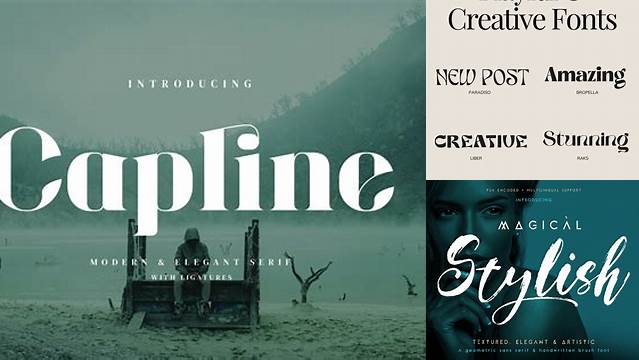
Stylish Fonts Themes: Free Downloads & Creative Ideas
Hey guys! Ever feel like your designs, presentations, or even just your social media posts are a bit… meh? You know, like they're missing that special oomph that makes people stop scrolling or lean in closer? Well, a huge part of that secret sauce is typography, and more specifically, using stylish fonts themes! Today, we're diving deep into the awesome world of free font downloads, exploring how to find the perfect styles to elevate your projects, and giving you tons of inspiration to make your work truly stand out. Forget boring, bland text – it's time to get creative!
Understanding the Power of Stylish Fonts
So, let's kick things off by really getting into why fonts matter so much, you guys. Think about it: text is everywhere. It's how we communicate, how we learn, how we express ourselves. And the way that text looks – the stylish fonts themes you choose – can completely change the message and the feeling you're trying to convey. A script font might feel elegant and personal, perfect for wedding invitations or a heartfelt letter. On the other hand, a bold, sans-serif font can convey strength, modernity, and professionalism, ideal for a business logo or a tech startup's website. Even a quirky, handwritten-style font can add personality and approachability to a blog post or a casual flyer. When you choose stylish fonts themes that align with your brand or the message you want to send, you're not just picking letters; you're crafting an entire vibe. This visual communication is incredibly powerful. It can influence a reader's perception before they even read a single word. A well-chosen font can make your content feel trustworthy, exciting, playful, sophisticated, or even urgent. It's like dressing up your words! If you're going to a formal event, you wouldn't wear ripped jeans, right? Similarly, you wouldn't use a playful, cartoonish font for a serious legal document. The goal with stylish fonts themes is to ensure your typography tells the right story and resonates with your intended audience. It’s about creating an emotional connection and a memorable impression. Many designers and content creators often overlook the subtle yet significant impact of typography, focusing more on colors and imagery. However, stylish fonts themes are the backbone of visual design. They provide structure, readability, and aesthetic appeal. Mastering the art of font pairing and selection can significantly elevate the overall quality and impact of your work, making it more engaging and professional. So, next time you're working on a project, really consider the personality of your text and how you want it to be perceived. The right stylish fonts themes can make all the difference in capturing attention and leaving a lasting positive impression.
Exploring Different Font Categories for Style
Alright, let's get a bit more granular, shall we? When we talk about stylish fonts themes, it's helpful to know the different families or categories they fall into. This way, you can intelligently pick the ones that suit your needs. First up, we have Serif fonts. These are the classic ones, guys, with those little feet or 'serifs' at the end of the strokes. Think Times New Roman or Georgia. They often give off a sense of tradition, reliability, and formality. They’re great for long blocks of text, like in books or newspapers, because the serifs can help guide the eye across the page, improving readability. Next, there are Sans-Serif fonts. Sans means 'without,' so these are fonts without those little feet. Think Arial or Helvetica. They tend to feel more modern, clean, and minimalist. They’re super popular for web design, headlines, and branding because they often look crisp on screens. Then you've got Script fonts. These are the ones that mimic handwriting or calligraphy. They can range from elegant and flowing to casual and brush-like. Stylish fonts themes in this category are fantastic for adding a personal touch, elegance, or a bit of flair, making them perfect for invitations, logos, or feature text where you want to make a statement. Following that, we have Display fonts. These are the attention-grabbers! They’re designed to be used in larger sizes, like for headlines, posters, or logos, and they often have unique, decorative, or bold characteristics that make them really stand out. They're not usually ideal for body text because they can be hard to read in small sizes. Finally, there are Slab Serif fonts, which are like serifs but much bolder and blockier, giving a strong, sturdy feel, often seen in older Western posters or modern branding that wants a robust look. Understanding these basic categories is your first step to navigating the vast world of stylish fonts themes and making informed choices. Each category has its own personality and best use cases, so choosing wisely can really enhance your design's effectiveness and aesthetic appeal.
Finding Free Stylish Fonts Themes Online
Now for the really exciting part – where do you actually get these amazing stylish fonts themes without spending a dime? Luckily, the internet is overflowing with resources for free fonts! One of the biggest and best places is Google Fonts. Seriously, guys, Google Fonts is a goldmine. They have hundreds of high-quality, open-source fonts that you can download and use for pretty much anything – personal projects, commercial work, you name it. They're all optimized for the web, too, which is a huge plus. Another fantastic resource is Font Squirrel. They curate a collection of free fonts specifically for commercial use, meaning you can use them in your business projects without any worries. They have a great variety, from elegant scripts to bold display fonts. If you're looking for something a bit more unique or artistic, check out sites like Dafont or 1001 Fonts. These sites have an enormous selection, though you do need to be a bit more careful and check the licensing for each font to ensure it allows for commercial use if that’s what you need. Many fonts on these sites are free for personal use, but might require a purchase for commercial projects. So, always do your due diligence! Also, keep an eye out for free font bundles or promotions offered by font foundries or designers. Sometimes, they’ll offer a selection of premium fonts for free for a limited time. Following your favorite font designers or foundries on social media or signing up for their newsletters can be a great way to snag these deals. Remember, when you're downloading free stylish fonts themes, it's always a good idea to check the 'Read Me' file or the licensing information provided. This will tell you exactly how you can use the font – whether it's for personal projects only, or if you can use it commercially, and if there are any restrictions. Getting this right ensures you're using fonts legally and ethically, which is super important, especially if you're building a brand or a business. So, happy hunting for those perfect stylish fonts themes!
Utilizing Font Pairing Techniques with Stylish Fonts
Okay, so you've found some awesome stylish fonts themes, but how do you make them work together? This is where font pairing comes in, and it’s a game-changer, folks! The idea is to combine two or more fonts that complement each other, creating visual interest and hierarchy without looking chaotic. A super common and effective technique is to pair a serif font with a sans-serif font. For example, you could use a bold sans-serif for your main headline and a more classic serif for the body text. This contrast creates a nice visual balance. Another popular method is to pair a display font (for headlines) with a simple, readable font (like a sans-serif) for the supporting text. The key here is contrast in style, weight, or size. You want one font to grab attention, and the other to be easily digestible. If you're using a script font, it's often best to pair it with a very simple, neutral font, like a clean sans-serif, so the script font can shine without competing. Avoid pairing two highly decorative or complex fonts together, as this can make your design look cluttered and hard to read. Think about the personality of each font. Do they have similar vibes, or do they create an interesting contrast? A good pairing often involves one font that's more dominant or decorative and another that's more subdued and functional. You can also create pairings based on historical or stylistic similarities. For instance, pairing two fonts from the same era but with different weights or styles can work well. When you're experimenting with stylish fonts themes, don't be afraid to try different combinations. Most design software allows you to preview fonts easily. Look for fonts that share similar x-heights (the height of lowercase letters like 'x') or have complementary stroke widths. Ultimately, good font pairing makes your text more engaging, improves readability, and adds a professional polish to your designs. It's all about creating harmony and hierarchy, making sure the right information stands out and the overall message is clear and aesthetically pleasing. Master this, and you'll seriously level up your design game, using those stylish fonts themes to their full potential.
The Role of Font Weights and Styles in Stylish Themes
Guys, let's talk about another crucial element that makes stylish fonts themes truly shine: font weights and styles! It's not just about the basic shape of the letters; it’s also about how thick or thin the strokes are (weight) and variations like italics or bold (style). These variations are built into most font families and are essential for creating hierarchy, emphasis, and visual interest within your text. For example, a font family might come in weights like Light, Regular, Medium, SemiBold, Bold, and Black. Using these different weights allows you to guide the reader's eye. You might use a bold weight for headlines to make them pop, a regular weight for body text for readability, and perhaps a light weight for subtle captions or secondary information. This creates a clear visual hierarchy, helping people understand what’s most important at a glance. Similarly, italics are often used for emphasis, to denote foreign words, or for titles of works like books or movies. They offer a stylistic contrast to the regular upright text without drastically changing the font's appearance. Bold is typically used for stronger emphasis or to make headings stand out. However, using too many different weights or styles can make your text look messy and disorganized. The trick is to use them intentionally and consistently. When you're exploring stylish fonts themes, look for families that offer a good range of weights and styles. This flexibility allows you to create sophisticated typographic systems. For instance, you might use an entire font family – say, a sans-serif with five different weights – for all the text in a single document. This creates a cohesive and professional look because all the fonts belong to the same 'family,' even though they have different visual treatments. Think of it like a well-coordinated outfit; everything matches and looks intentional. Don't underestimate the power of these variations! They can transform a flat block of text into something dynamic and engaging. When selecting stylish fonts themes, consider how you plan to use these variations to structure and highlight your content. It’s a fundamental aspect of good typography that makes your message clearer and your design more impactful. Experimenting with these subtle differences can really make your chosen stylish fonts themes work harder for you.
####### Finding Free Stylish Script Fonts for Elegance
Okay, let's dive into a specific type of font that screams elegance and personality: script fonts! If you're looking to add a touch of class, romance, or a personal, handcrafted feel to your designs, stylish script fonts are the way to go, guys. Think wedding invitations, elegant logos, greeting cards, or even artistic quotes. These fonts mimic the fluidity and variation of handwriting or calligraphy, and when used correctly, they can be absolutely stunning. The good news is that you can find tons of gorgeous stylish script fonts for free online. Websites like Google Fonts offer some beautiful script options, like 'Dancing Script' or 'Great Vibes', which are perfect for adding a touch of sophistication without any cost. Font Squirrel also has a curated selection, often with commercial licenses. For a wider, albeit sometimes more eclectic, range, sites like Dafont and 1001 Fonts are great places to explore. Just be sure to check the licensing! Many free script fonts are free for personal use only, so if you plan to use them for a business logo or commercial product, you’ll need to find one that explicitly allows commercial use or purchase a license. When choosing stylish script fonts, pay attention to their readability. Some script fonts can be quite elaborate and difficult to read, especially in smaller sizes or for longer blocks of text. It's often best to use them for headlines, short phrases, or decorative elements rather than for body copy. Look for script fonts that have a good flow and clear letterforms. Also, consider the style of script: are you going for a formal, calligraphy-inspired look, a more casual brush script, or a playful handwritten feel? Each style evokes a different mood. Pairing a script font with a clean sans-serif or a simple serif font is usually the best approach to ensure your overall design is balanced and readable. The contrast highlights the script font while providing a solid foundation. So, if you want to add that special, elegant touch, don't shy away from exploring the world of stylish script fonts – there are so many beautiful free options waiting for you to discover!
######## Discovering Free Stylish Display Fonts for Impact
Alright, let's talk about fonts designed to make a statement: display fonts! If you need your text to grab attention, command the page, and leave a powerful visual impression, stylish display fonts are your best friends, folks. These fonts are crafted for impact, meant to be seen and admired, typically used for headlines, titles, posters, logos, and anywhere you want text to be a dominant visual element. Because they're often quite decorative or unique, they're generally not suitable for body text where readability over long passages is key. The great news is that you can find an incredible array of stylish display fonts available for free download. Google Fonts has a surprisingly robust selection of display fonts that are high-quality and commercially free to use. Sites like Font Squirrel are also excellent for finding display fonts that are specifically licensed for commercial use. If you're after something truly unique, quirky, or artistic, browsing through archives like Dafont or Behance (where designers often share their work) can yield some real gems. Just remember that crucial step: always check the license! Many display fonts are free for personal use, but you might need to purchase a license for commercial projects. When selecting stylish display fonts, consider the context. Are you designing a movie poster? A concert flyer? A book cover? The font should match the mood and theme of your project. Look for fonts with distinctive characteristics – bold serifs, unique ligatures, unusual letter shapes, or a strong retro or futuristic feel. These elements make them stand out. However, balance is key. Pair your eye-catching display font with a simple, highly readable font (usually a sans-serif) for any accompanying text, like a subtitle or body copy. This contrast ensures that your main message is clear and the supporting information is accessible. Stylish display fonts are fantastic for showcasing creativity and making your designs memorable. They are the visual exclamation points of your typographic toolkit, so use them wisely to create maximum impact!
######### Choosing Free Stylish Handwritten Fonts for Personality
Hey everyone! Want to inject some serious personality and a friendly, approachable vibe into your projects? Then you absolutely need to explore stylish handwritten fonts, guys! These fonts mimic the look of actual handwriting – from neat and tidy to loose and scribbly – and they’re perfect for adding a unique, human touch to everything from blog posts and social media graphics to invitations and greeting cards. They instantly make your content feel more personal and relatable. The fantastic news is that there are tons of amazing stylish handwritten fonts available for free download online. Google Fonts has some great options like 'Indie Flower' or 'Permanent Marker' that offer different takes on handwriting. Font Squirrel is another excellent spot, often featuring commercial-use friendly fonts. For sheer volume and variety, sites like Dafont and 1001 Fonts are treasure troves. You'll find everything from elegant, flowing script-like handwriting to casual, chunky lettering. Remember that golden rule, though: always check the license! Many free handwritten fonts are intended for personal use only, so if you plan to use them commercially, make sure you’re getting one that permits it, or be prepared to purchase a license. When you're picking out stylish handwritten fonts, think about the specific personality you want to convey. Is it a neat, organized script that suggests careful thought? Or a more energetic, spontaneous scrawl that feels playful and spontaneous? The style of the handwriting can really change the message. Also, consider readability, especially if you're using it for more than just a small decorative element. Some handwritten fonts can be tricky to read in smaller sizes. A common and effective technique is to pair a stylish handwritten font with a clean, simple sans-serif font. The sans-serif provides a neutral, readable base, allowing the character of the handwritten font to shine without overwhelming the design. This contrast creates a beautiful balance and ensures your message is both stylish and clear. So go ahead, experiment with stylish handwritten fonts to add that perfect touch of personality!
Did you know that the fonts you choose can actually influence how people feel and react? That's right, guys, there's a whole psychological impact of font styles! Different typefaces evoke different emotions and associations. For example, serif fonts often convey tradition, stability, trustworthiness, and authority. Think of old libraries or established institutions – they tend to use serifs. This can make them feel reliable and serious. Sans-serif fonts, on the other hand, are frequently associated with modernity, cleanliness, simplicity, and directness. They can feel approachable and efficient, which is why they're so popular in tech and web design. Script fonts, mimicking handwriting, tend to evoke feelings of elegance, intimacy, creativity, or a personal touch. They can feel romantic, artistic, or friendly depending on their specific style. Display fonts and other more decorative styles can elicit a wide range of emotions depending on their design – excitement, playfulness, luxury, or even fear. Understanding these psychological associations allows you to choose stylish fonts themes that align with the message and feeling you want to convey. If you want your brand to feel innovative and cutting-edge, a modern sans-serif might be perfect. If you're aiming for a luxurious and timeless feel, a sophisticated serif or a refined script could be the way to go. The psychological impact of font styles is a powerful tool in your design arsenal, helping you connect with your audience on a deeper, emotional level. So, choose wisely, and let your typography speak volumes about the intended mood and message of your work using those awesome stylish fonts themes!
#################################### Designing with Stylish Font Collections and Bundles